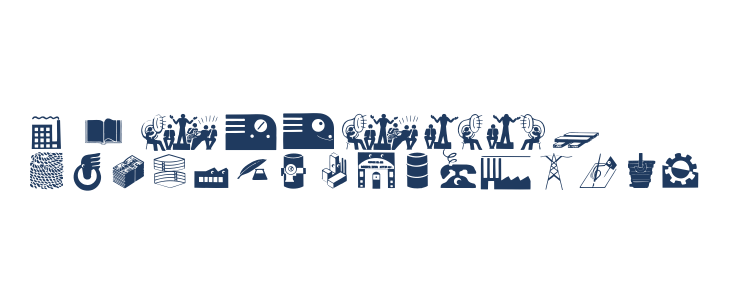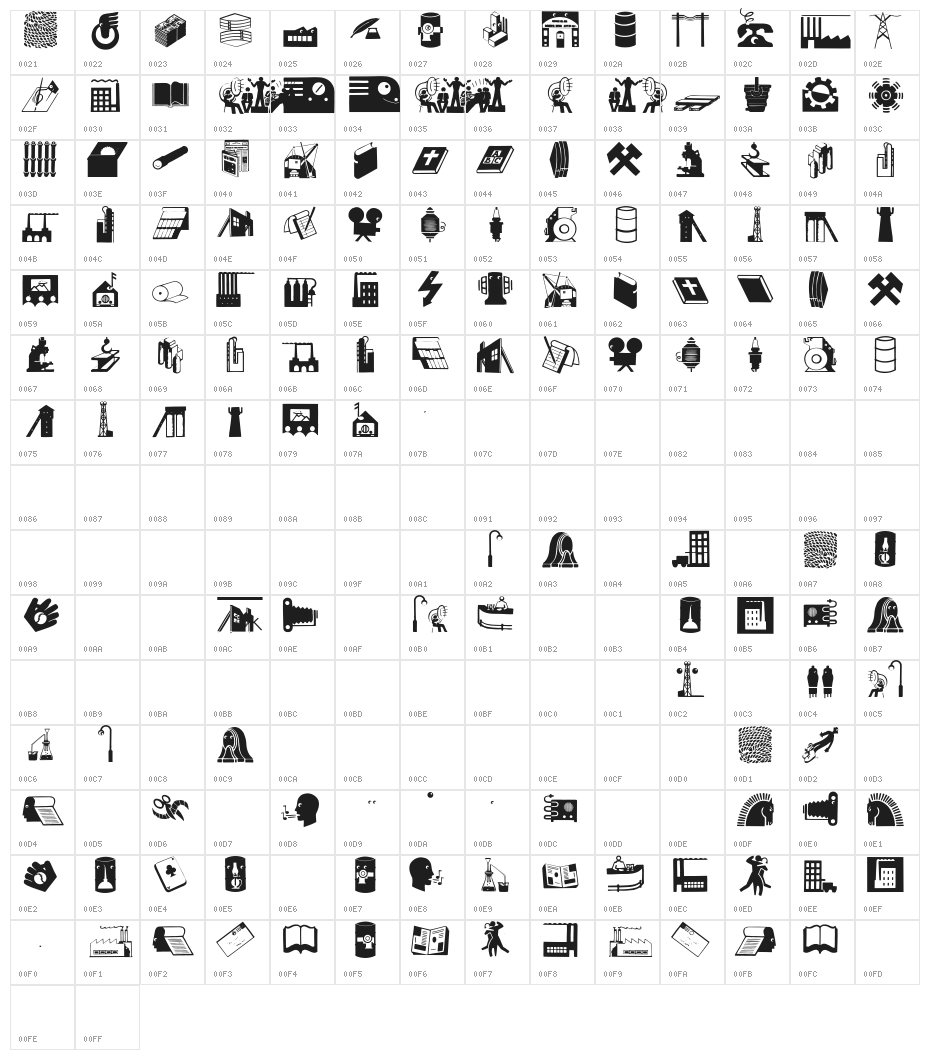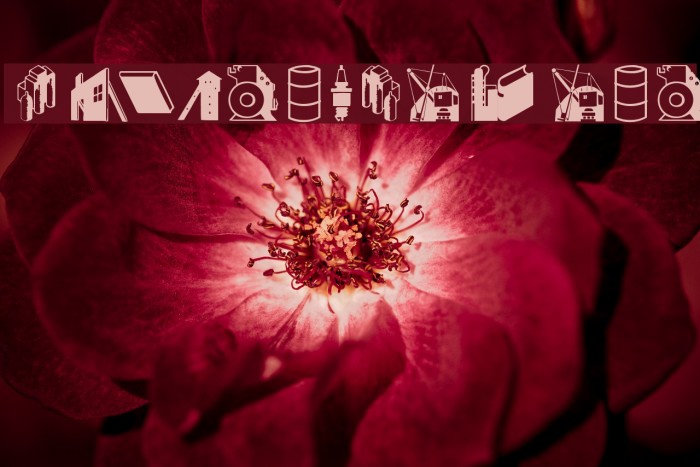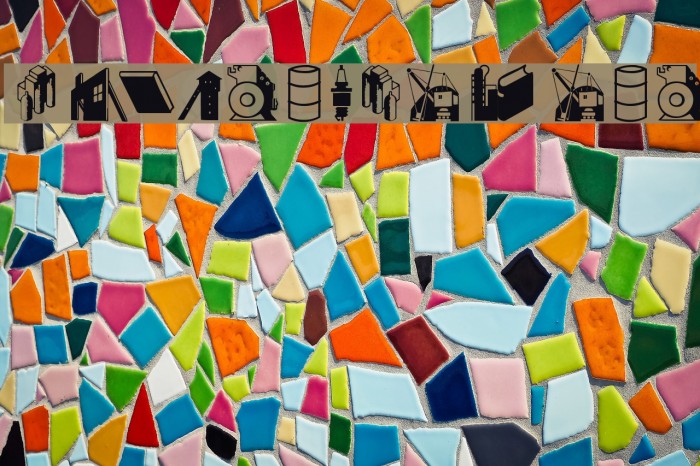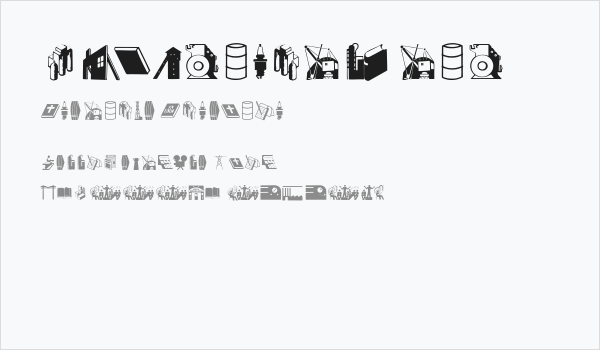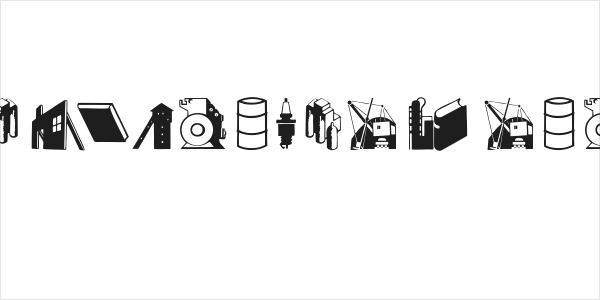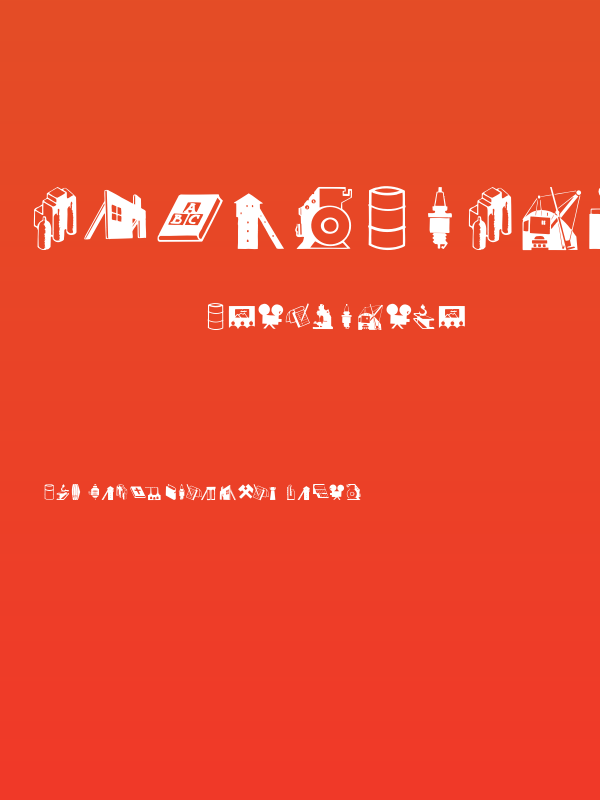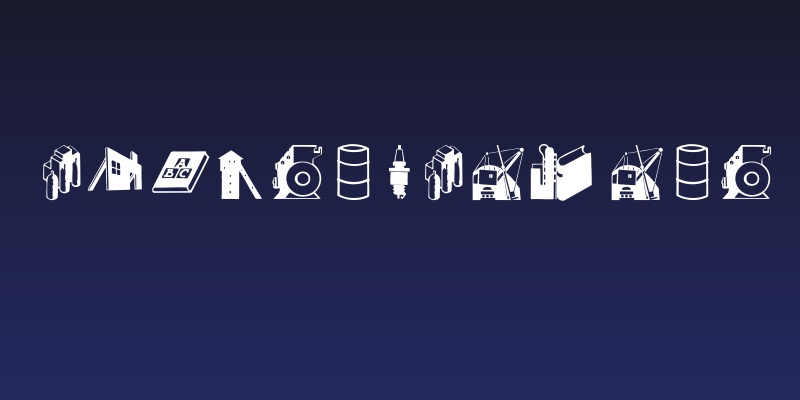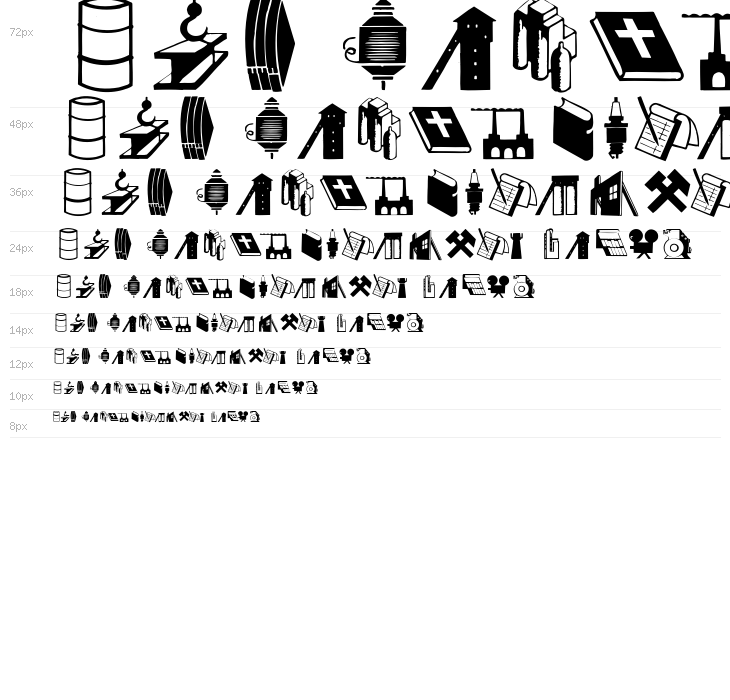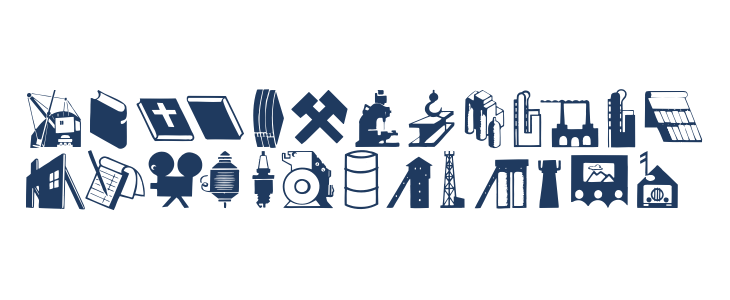
IndustrialBats Font
IndustrialBats Description
This collection features a series of industrial-themed icons, each representing various elements of industry and technology. The icons include imagery such as factories, machinery, tools, and scientific equipment, all depicted in a bold, graphic style. The designs are highly detailed, with strong lines and solid fills, making them ideal for use in projects that require a robust and impactful visual presence. The icons are uniform in size and style, ensuring a cohesive look when used together.